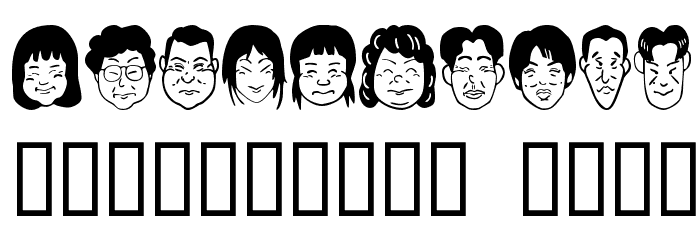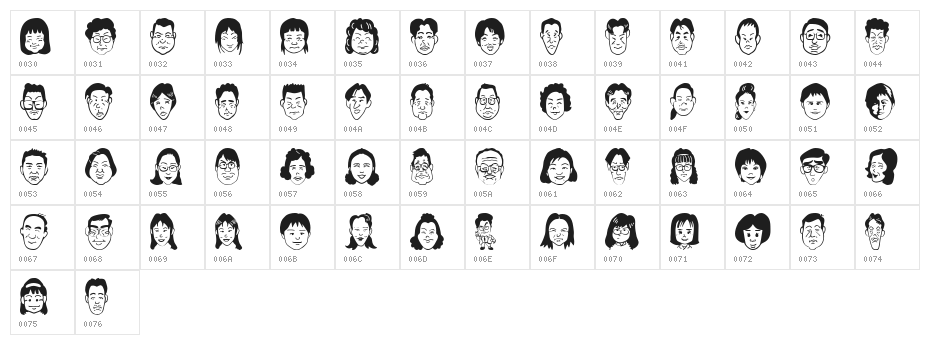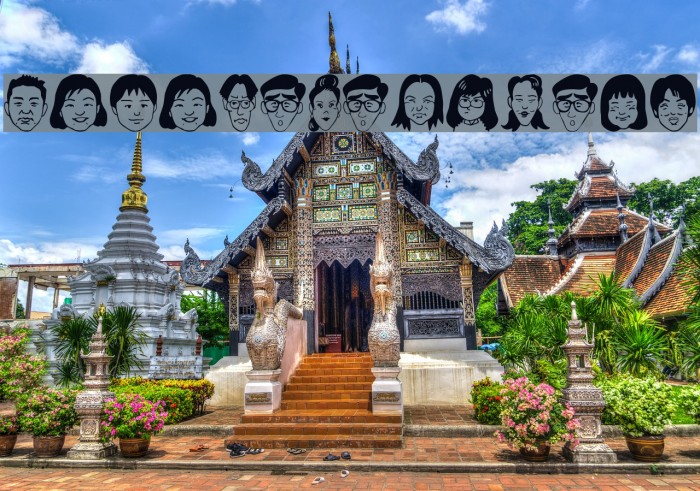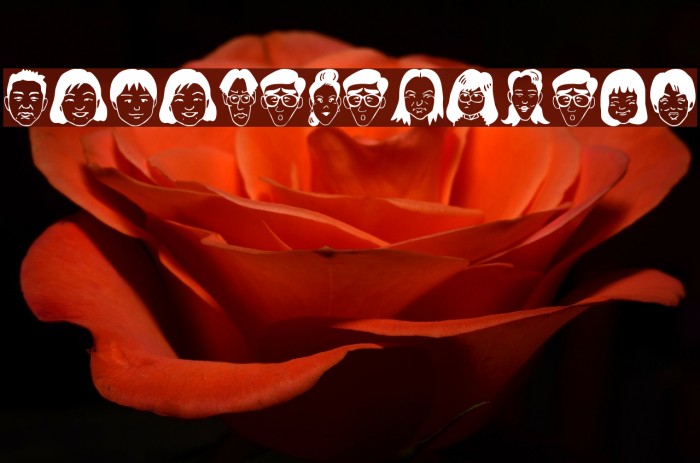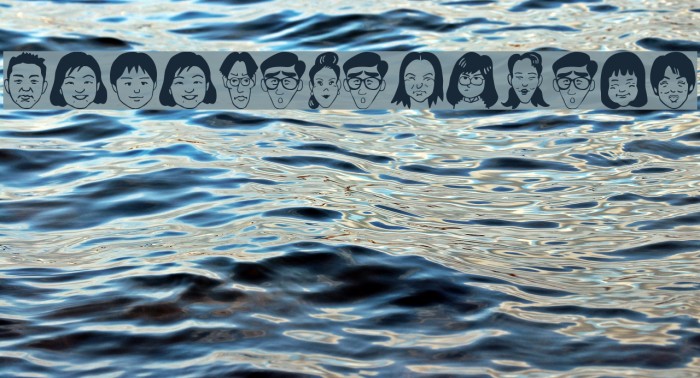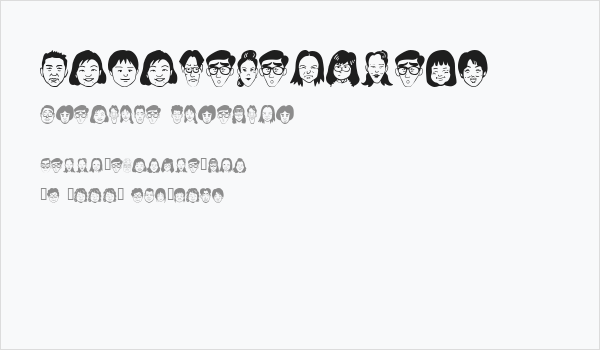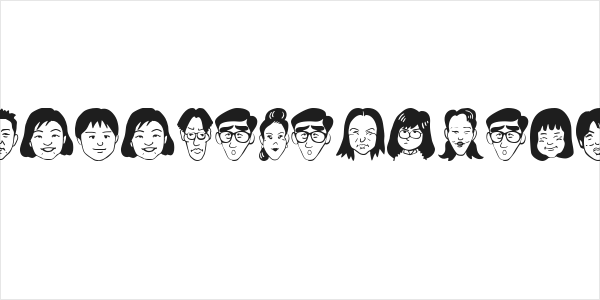
SakabePeople07 Font
SakabePeople07 Description
A highly decorative and playful font consisting of hand-drawn cartoon faces for each character, with unique expressions and hairstyles, giving a whimsical and humorous appearance.
| Overall Style | Playful, Whimsical, Cartoonish |
| Use Case | Logos, Posters, Headlines, Themed events |
| Proposed Projects | ChildrenΓ’β¬β’s books, party invitations, comic strips, playful branding, educational materials. |